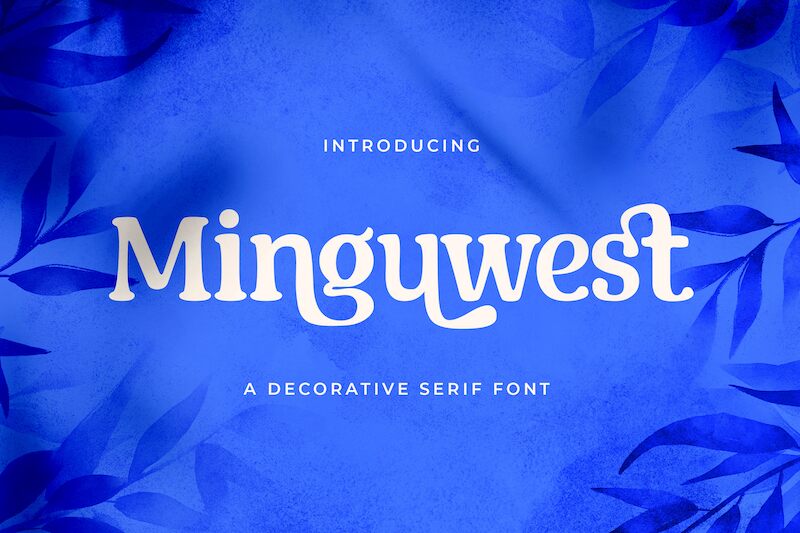
Minguwest
StringLabs Creative Studio designed Minguwest, a remarkable ornamental typeface, with an ageless charm that stems from its pronounced serifs and graceful curves. This font’s one of a kind quality fuses traditional influences with modernism in order to create an eye-catching look that immediately demands attention. The firm brushstrokes of Minguwest portray confidence and make it ideal for designs that should be bold and impactful.
Its versatility comes out in the way it can effortlessly adapt to various designing contexts. This font has been used for stand-out headlines as well as editorial layouts or branded marketing materials and packaging. It is readable yet fashionable which makes Minguwest a good choice for designers who want their works to have a little bit of gracefulness.